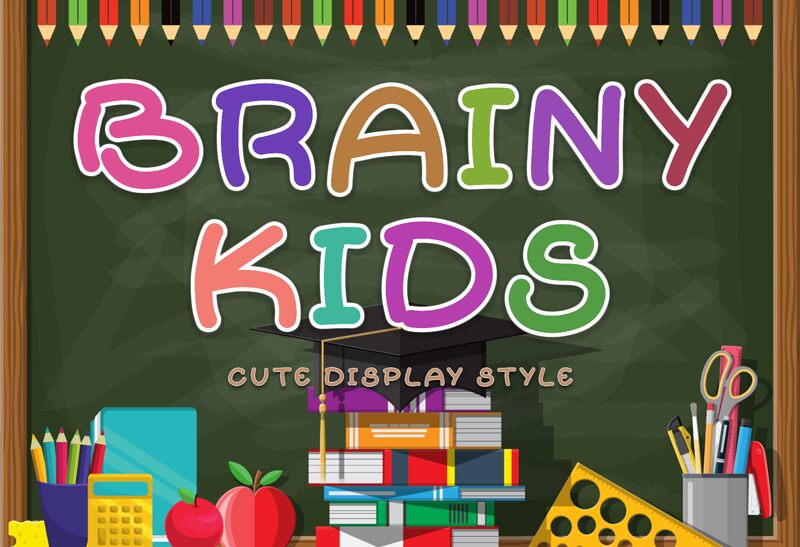
Brainy Kids font by Yoga Letter is a handwritten typeface with vibrant and cheerful characters. The free font is youthful and friendly in every sense; it uses color to express the modern and bright ideas of the designer. In short, it’s made to impress children by possibly being associated with their favorite educational book or story.
The whimsical font can be used for children’s activity books, illustrations, comics, posters, promotional material for events for kids, photography, album covers, costumes and fashion, and games to list a few things. In general, it suits personal purposes really well but can also work properly for small business marketing in limited cases as the work is non-commercial.